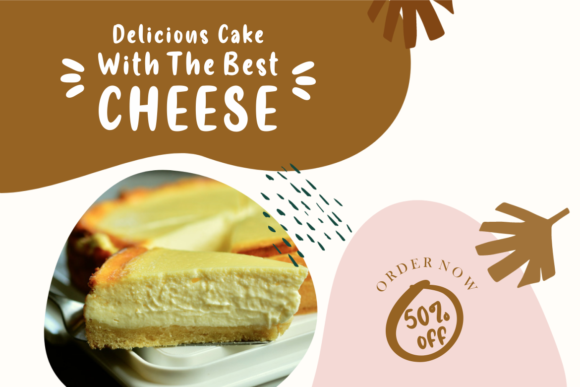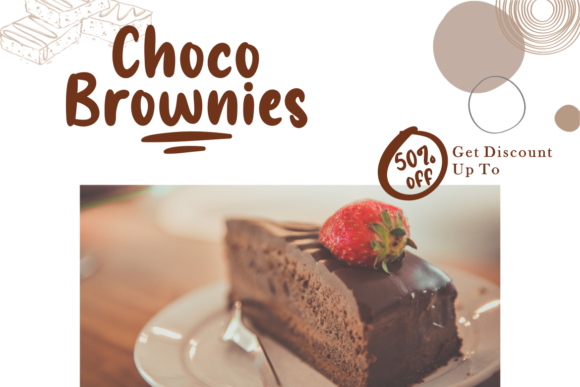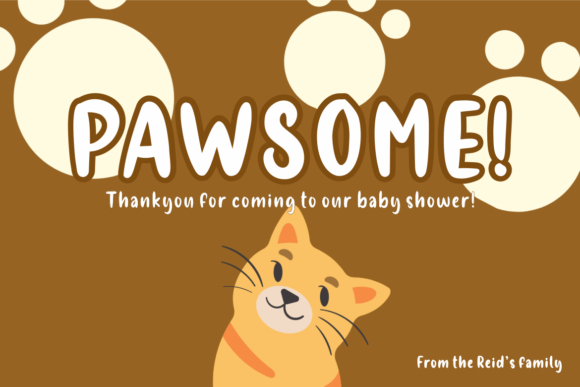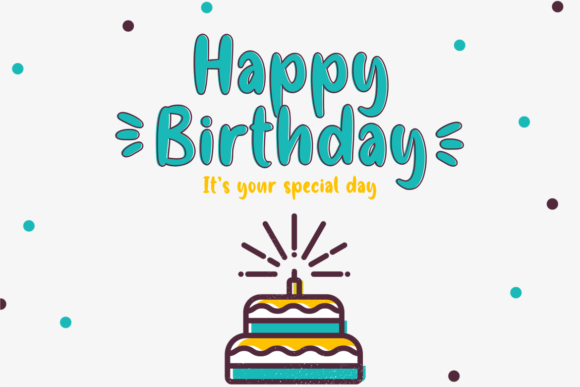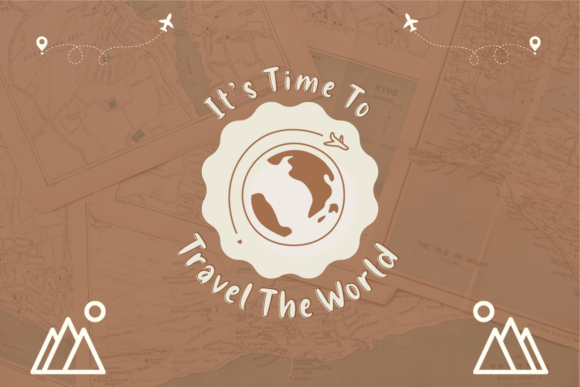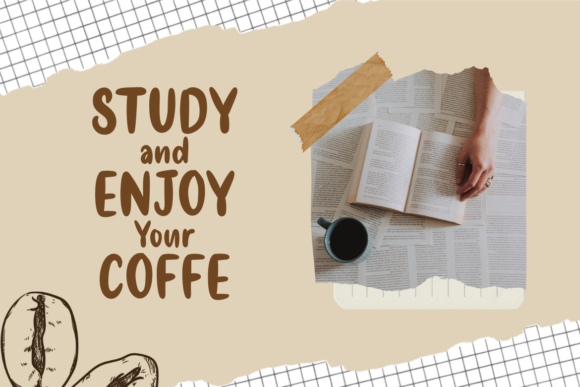
Introduction to Chocolizious Font
Chocolizious is a playful and delicate display font, suitable for a wide spectrum of applications.
From greeting cards to headlines, this font will guarantee a romantic touch to each of your creations .
Key Features of Chocolizious Font
Why Choose Chocolizious Font?
Chocolizious Font offers exceptional quality and versatility, making it a valuable addition to your design toolkit. Whether you’re creating for personal projects or commercial use, Chocolizious Font delivers professional results.